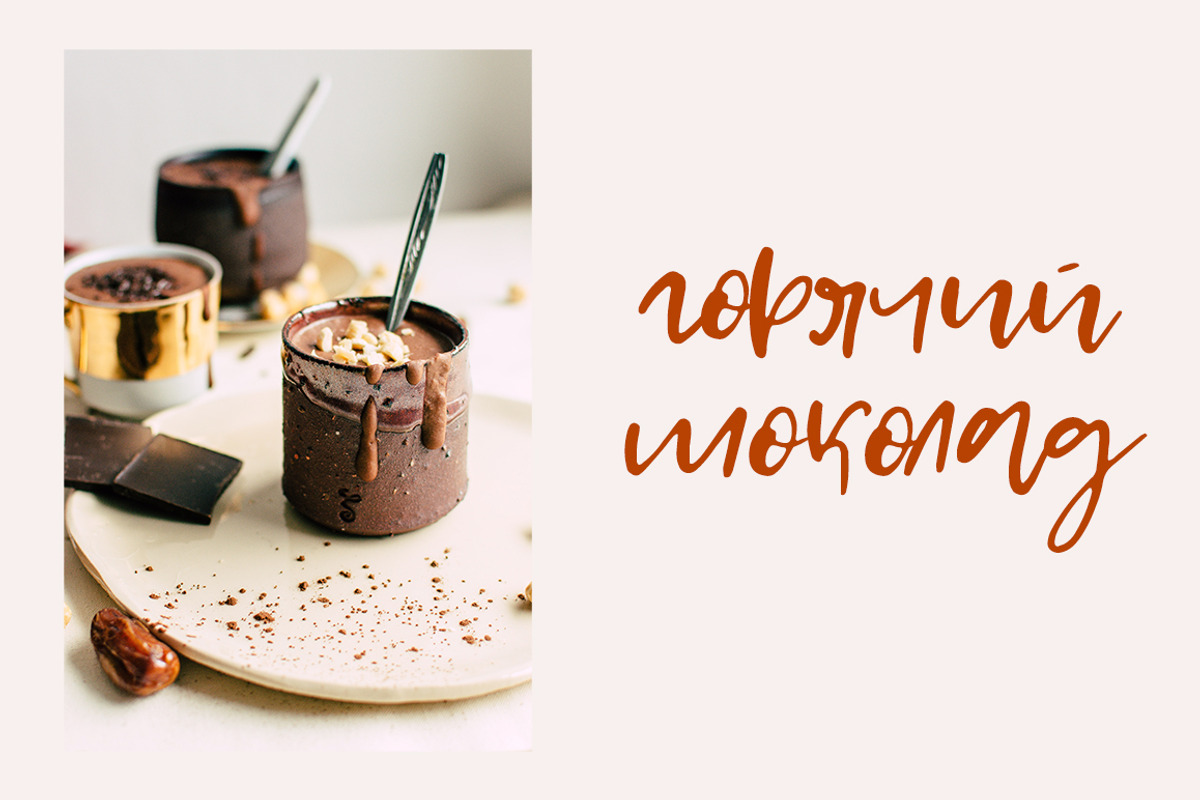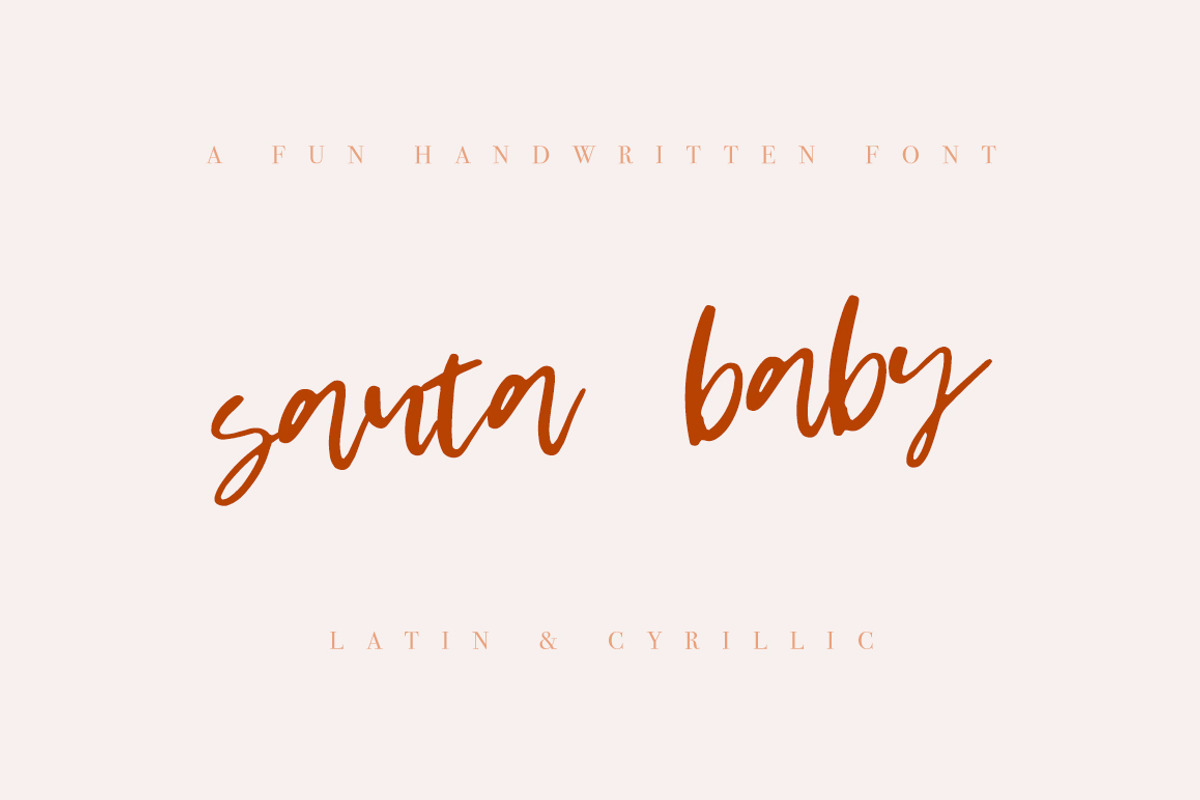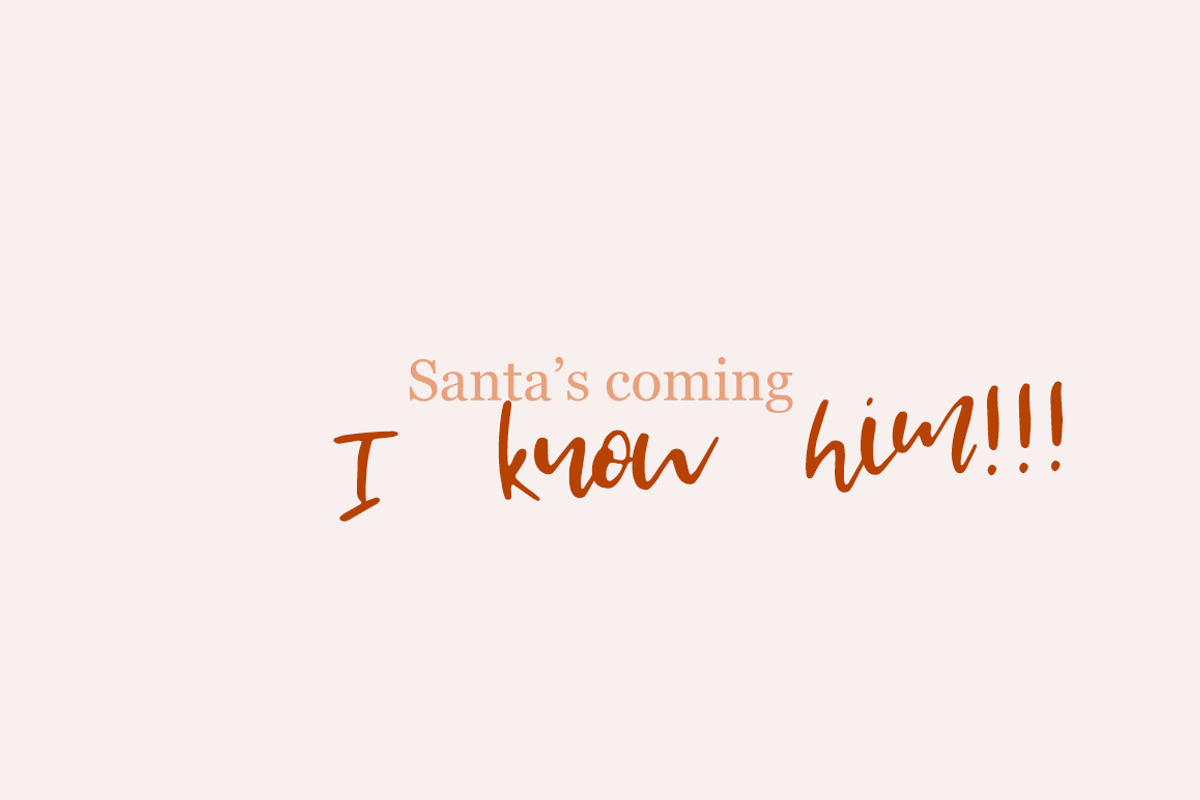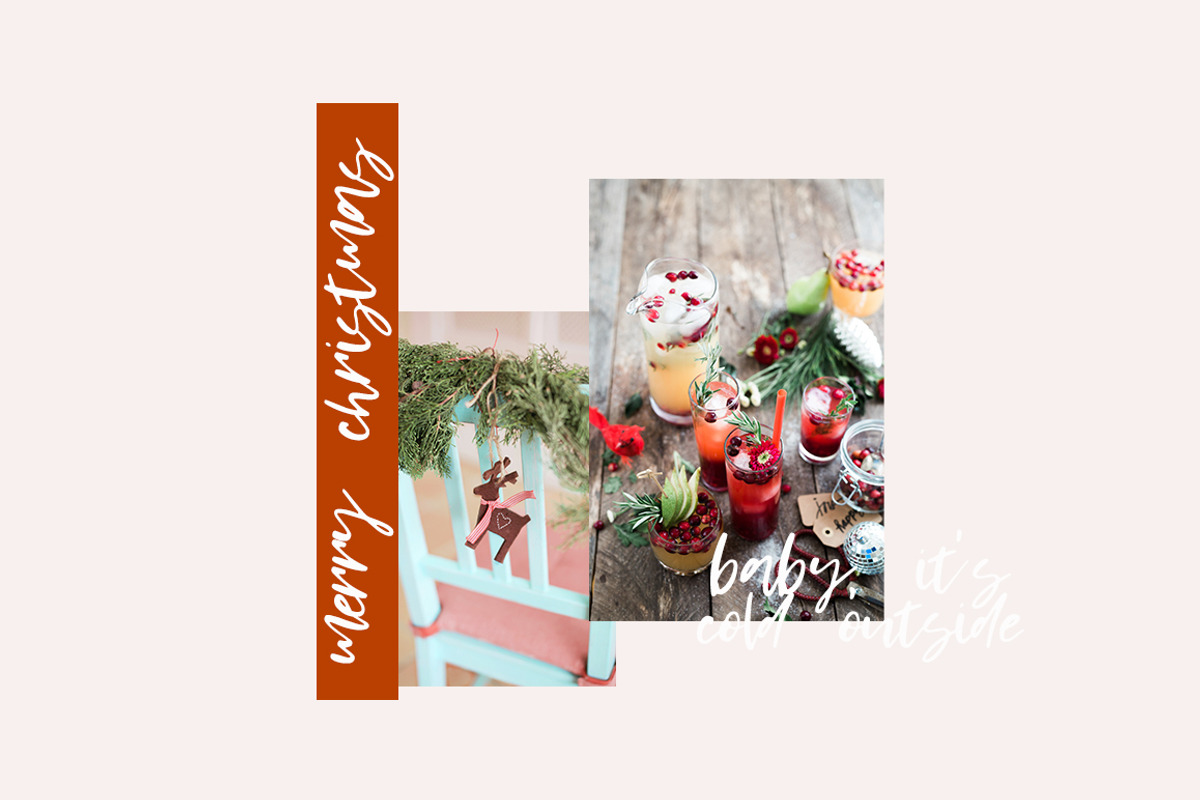
Santa Baby-Cyrillic & Latin
SANTA BABY is sweet and playful, but also Crafty. This versatile script font has a wide range of applications ranging from greeting cards to kids’ crafts, and is guaranteed to add a sweet touch to your next design.
CYRILLIC SUPPORT